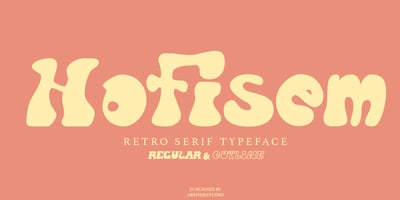
Hofisem
Hofisem font
Hofisem Font Family was designed by Asep Rendi and published by Arendxstudio. Hofisem contains 2 styles and family package options. Hofisem is a retro Serif typeface from the 1970s style, full of nostalgia and handmade funk, it has a thickness that is very fitting for retro styles and the like, solid and uniqueness of each character style made.Hofisem comes with opentype features such stylistic alternates, stylistic sets & ligatures good for logotypes, posters, badges, book covers, t-shirt designs, packaging and much more.Features:-Uppercase & Lowercase-Multilingual support-Numbers-Symbols-Punctuation-Ornament